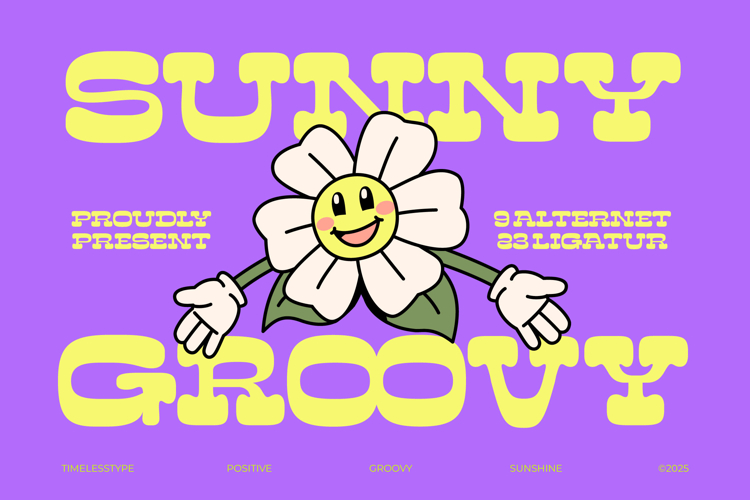
Sunny Groovy - Display Groovy Font
Inject an instant dose of vibrant nostalgia into your next design project. Introducing Sunny Groovy - Display Groovy Font, a typeface that captures the irresistible energy and optimism of the 1970s aesthetic. Defined by its boldly rounded terminals and thick, exaggerated letterforms, this font is engineered to be noticed. It delivers maximum visual impact, making it the perfect foundation for designs that require a touch of retro charm mixed with modern display legibility and a genuinely fun aesthetic.